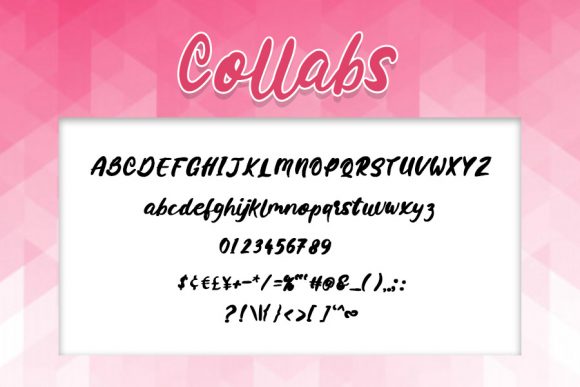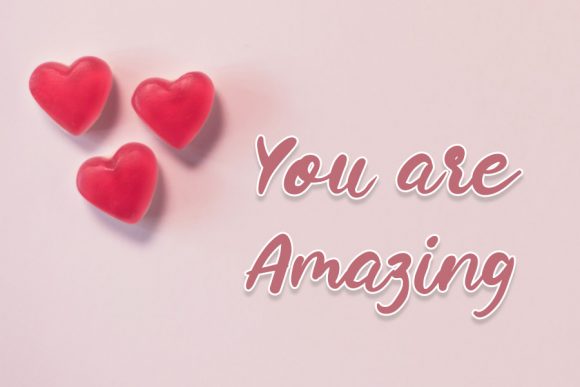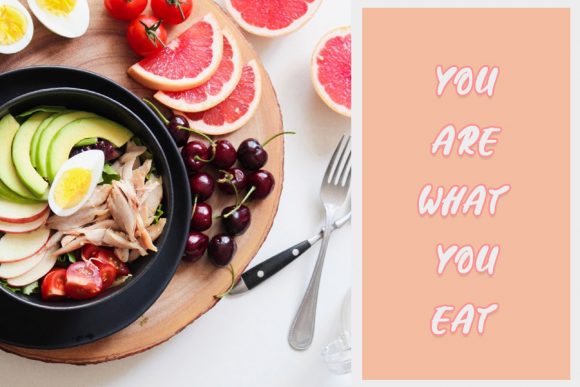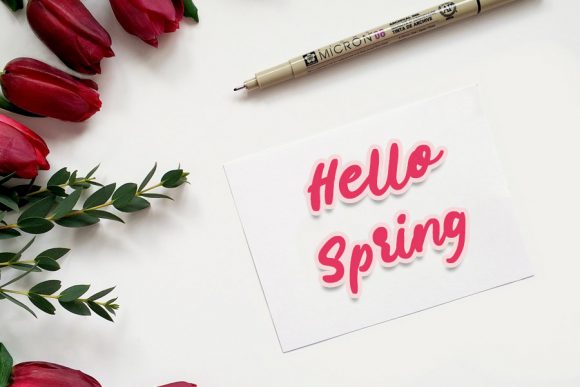
Introduction to Collabs Font
Collabs feels incredibly elegant and flowing.
It looks stunning on wedding invitations, thank you cards, quotes, greeting cards, logos, business cards and every other design which needs a customized touch .
Key Features of Collabs Font